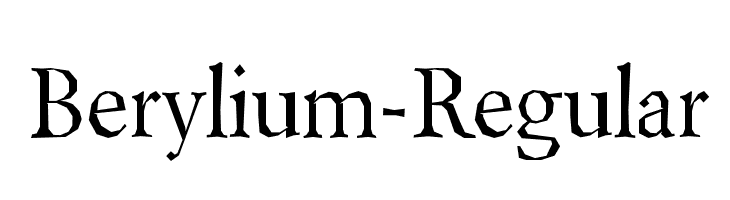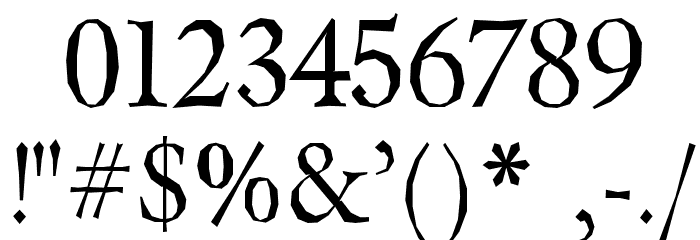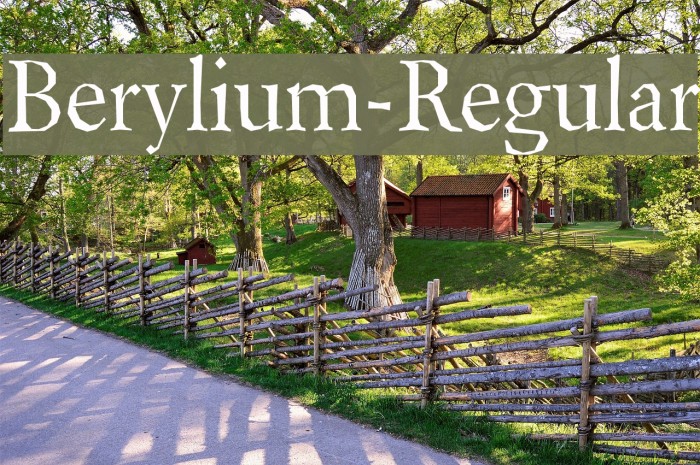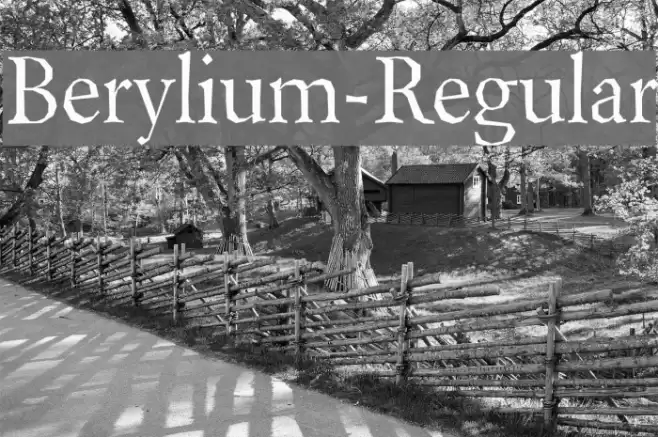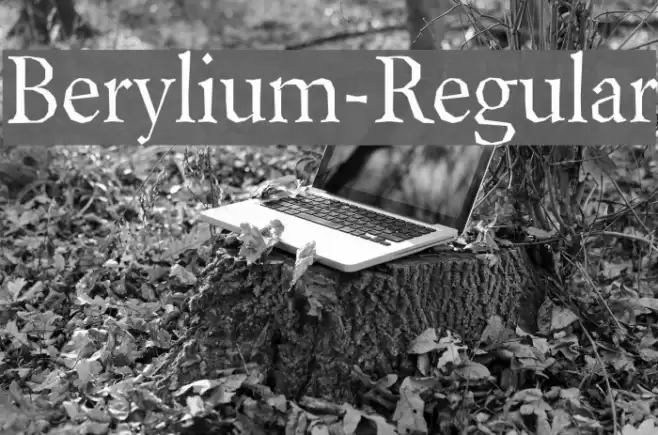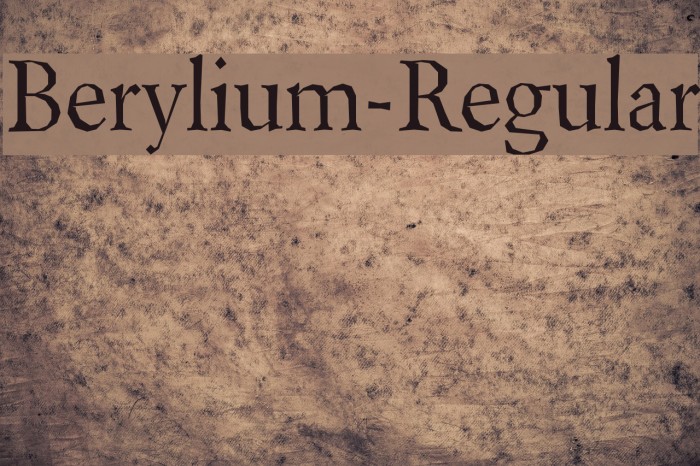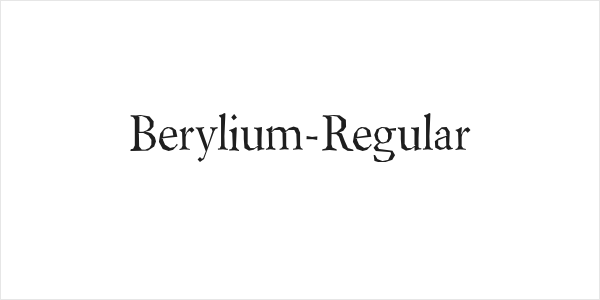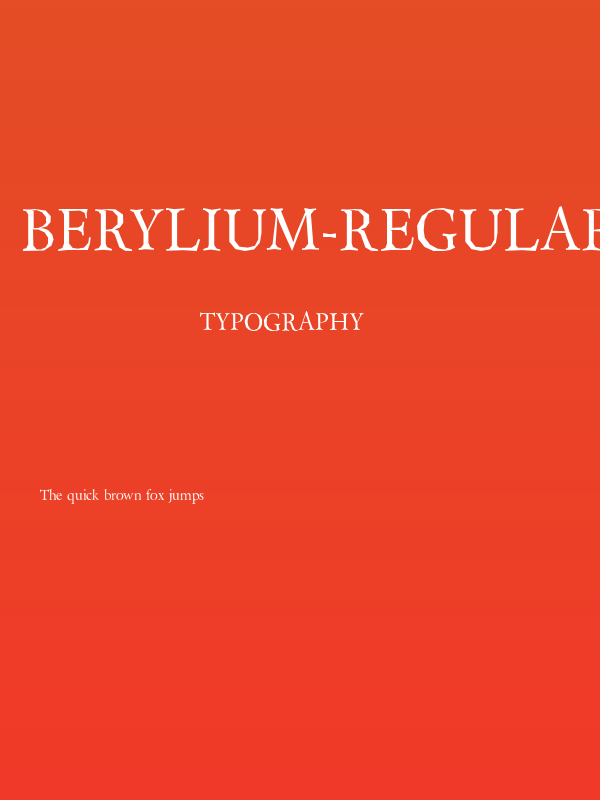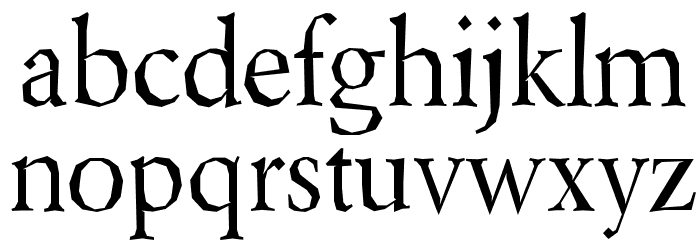
Berylium-Regular Font
Berylium-Regular Description
This font features a classic serif style with a slightly distressed and hand-crafted appearance. The characters exhibit a traditional elegance with sharp serifs and a subtle unevenness that adds a unique, organic feel. The uppercase letters are bold and commanding, while the lowercase letters maintain a consistent flow with slightly exaggerated ascenders and descenders. Numbers and special characters are designed to match the overall aesthetic, providing a cohesive look across all glyphs. The font's distinct personality makes it suitable for projects that require a touch of sophistication and historical charm.
Overall StyleClassic
Use CaseHeadlines, Logos, Editorial design
Proposed ProjectsIdeal for book covers, historical documents, branding, and editorial design.